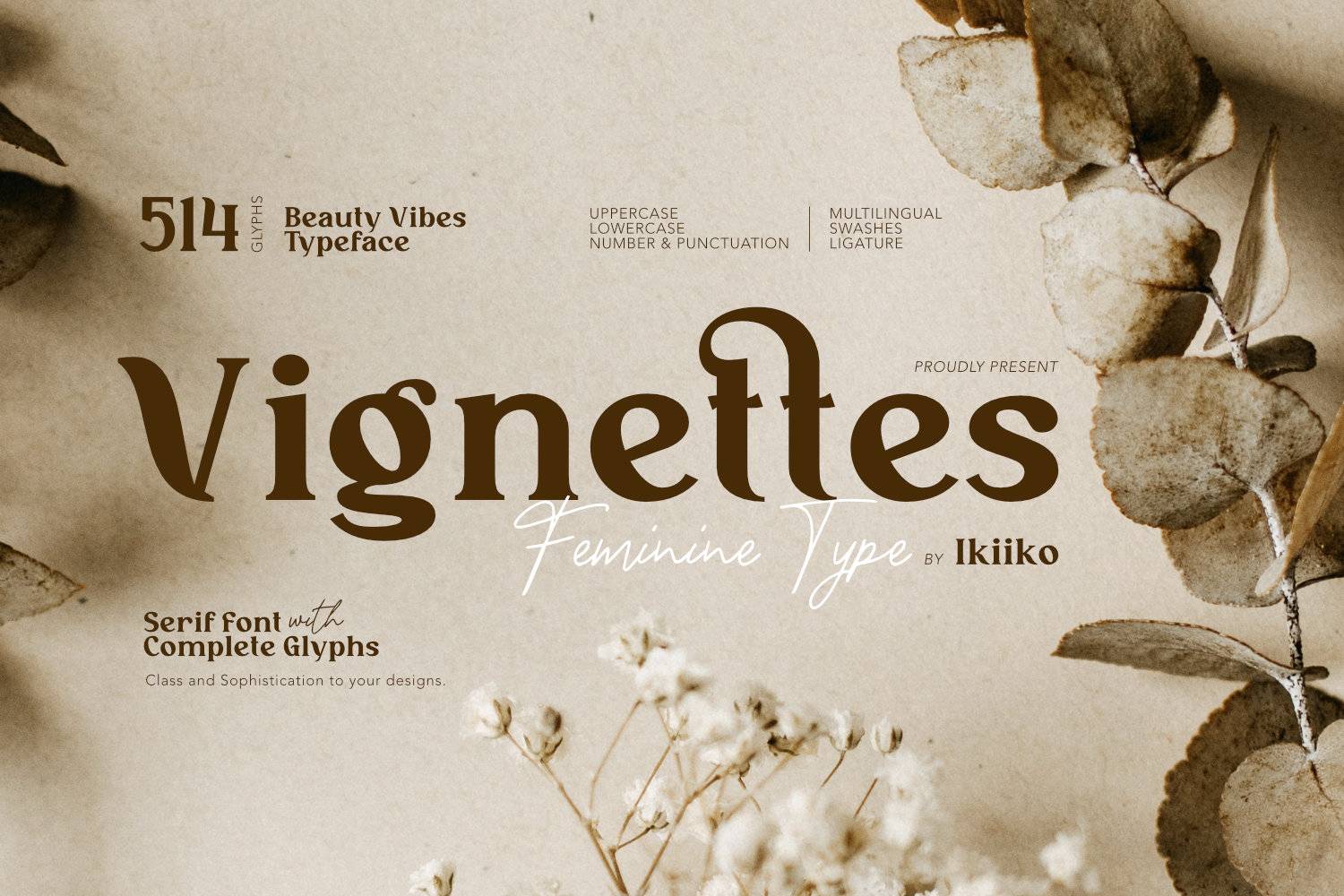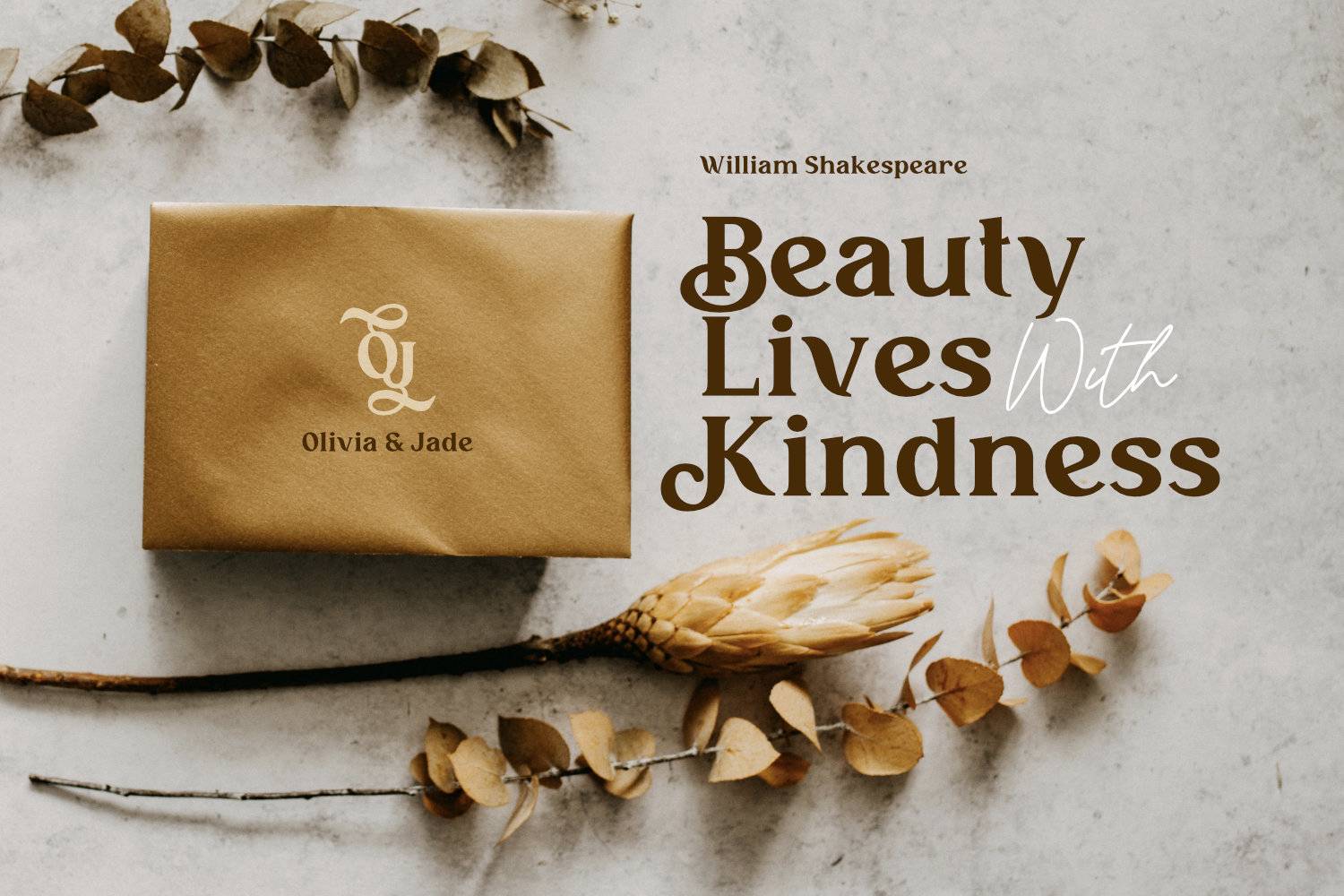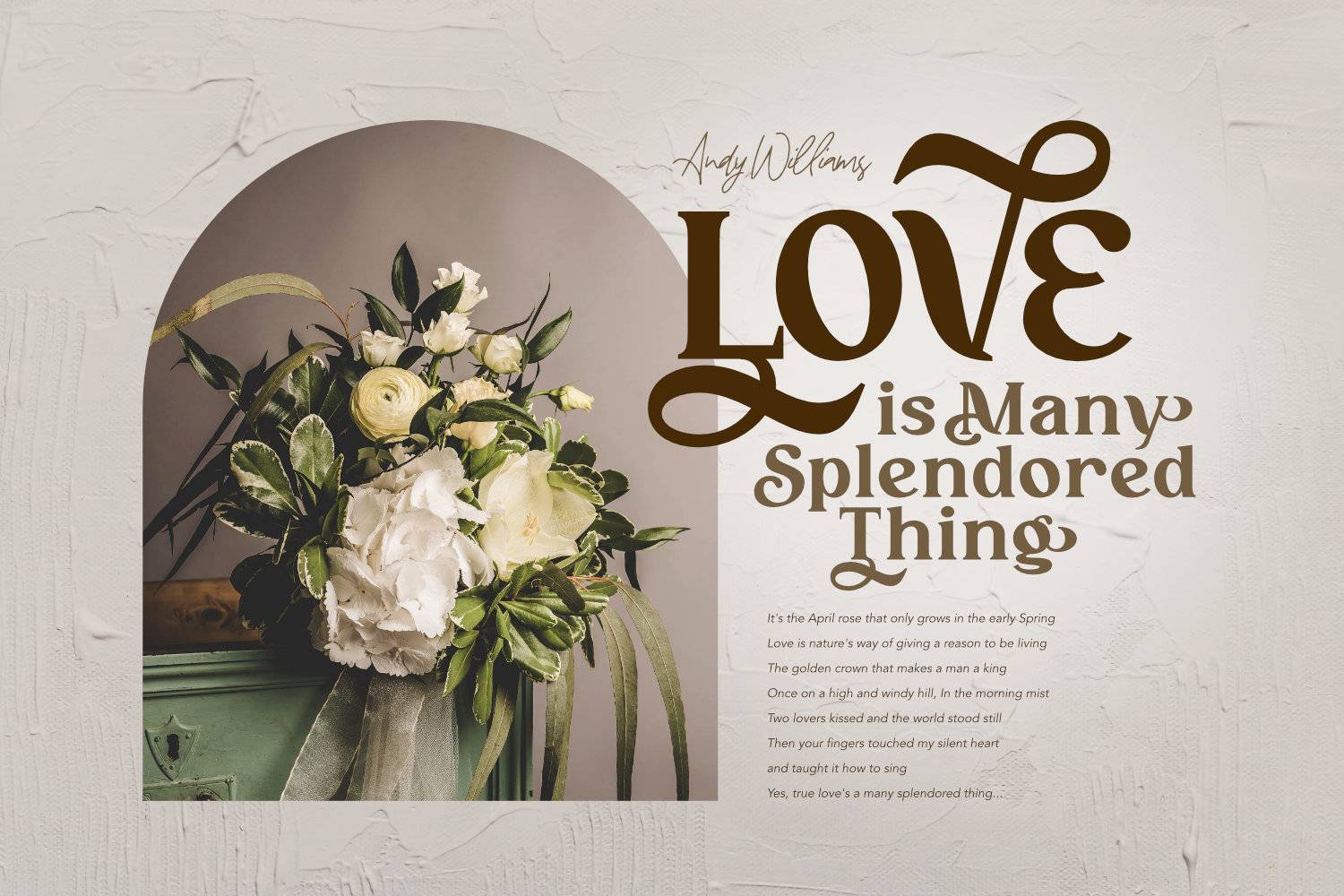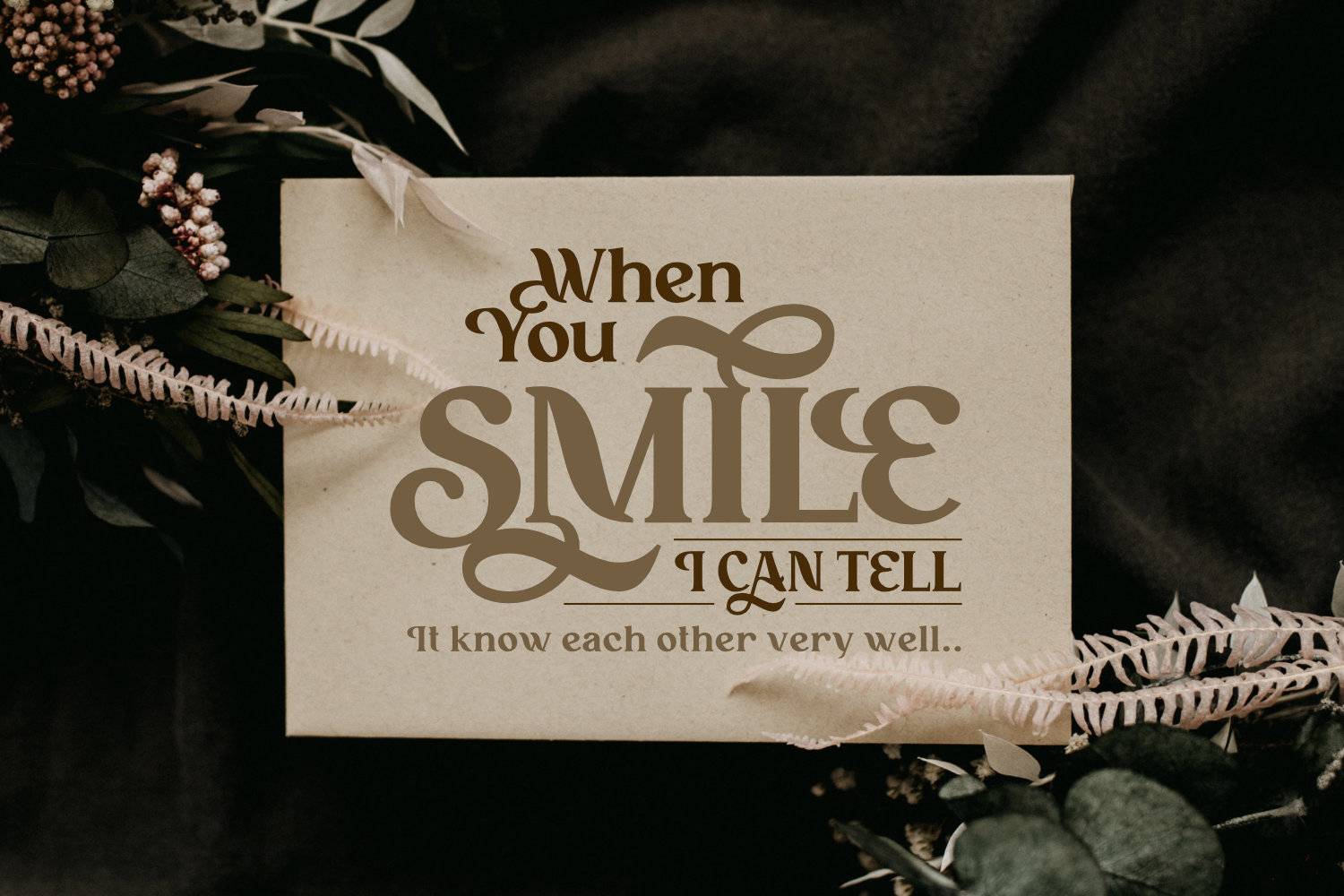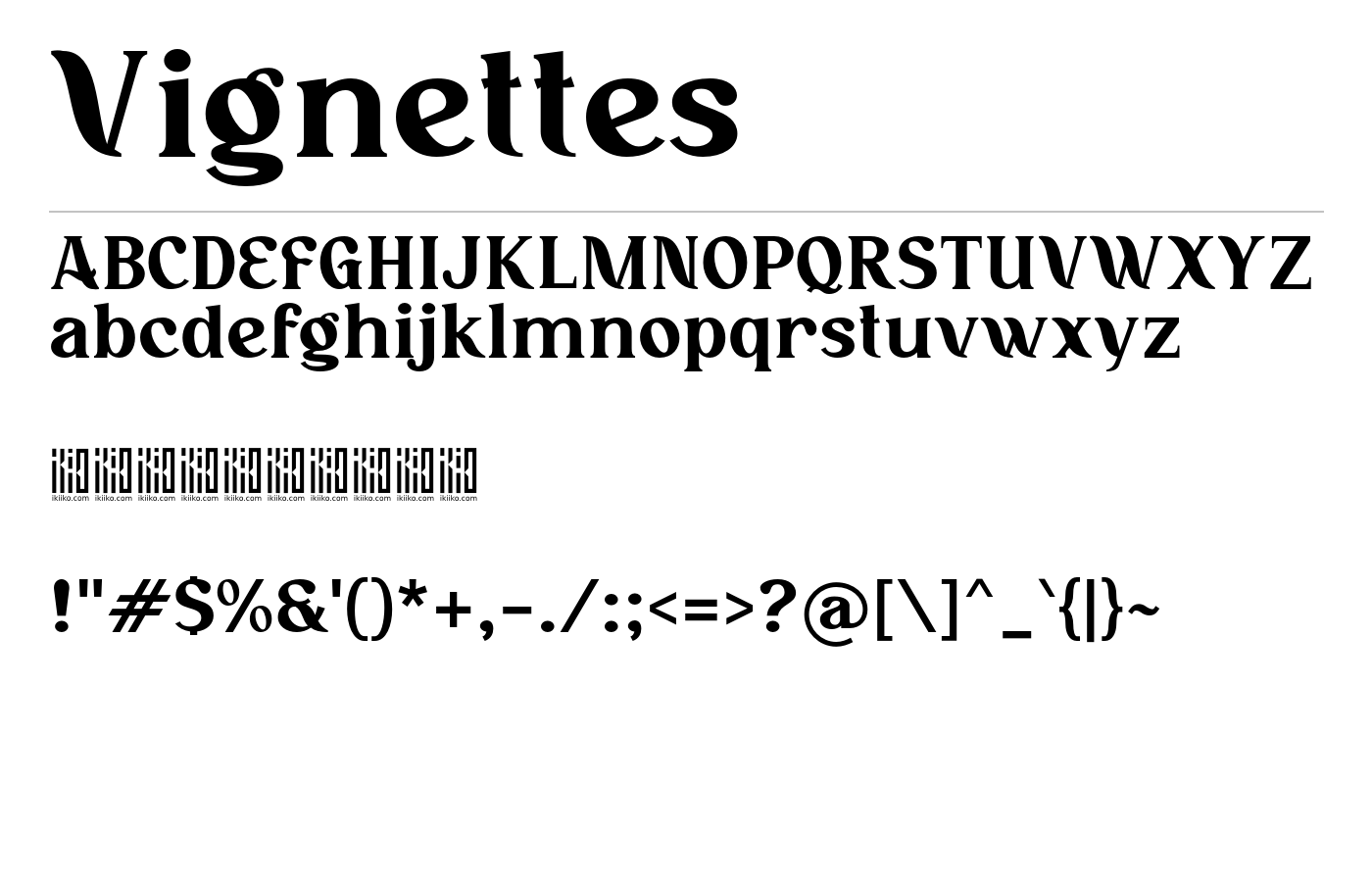
Vignettes is a bold serif font with distinctively sharp, bracketed serifs and a moderate contrast between thick and thin strokes, giving it a strong yet elegant presence. Its unique letterforms, such as the curled tail on the lowercase 'g' and the stylized 'Q', lend a vintage, sophisticated feel, making it perfect for luxury branding, editorial headlines, and stylish packaging where a touch of timeless character is desired. This font captures a refined personality that blends tradition with flair, ideal for designs that seek to communicate quality and classic charm.
Vignettes Font
About Vignettes Font
| Font family | Vignettes Font |
| Designer | Wahyu Eka Prasetya, Andhika Pradana |